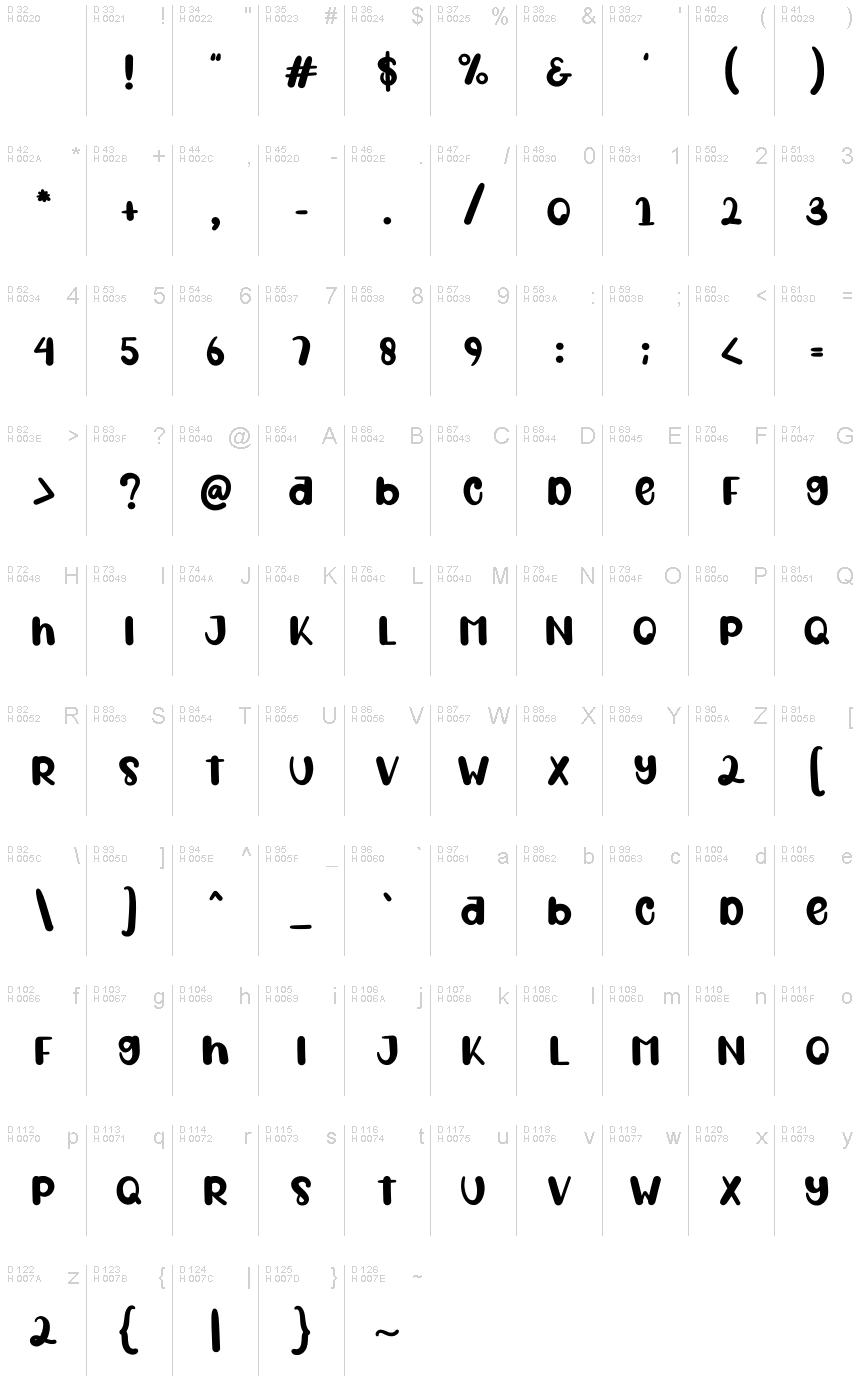
Winter Snowman
Winter Snowman is a delightful, handwritten display font that exudes a sense of whimsy and warmth. Its bold, playful strokes and rounded edges evoke a charming, cartoon-like aesthetic, making it an ideal choice for designs that require a touch of playfulness and friendliness.
This font's sweet, friendly character lends itself beautifully to a variety of applications, from wedding invitations and greeting cards to children's stationery and party decorations. Its expressive, almost calligraphic style adds a personal, handcrafted feel to any design, while the bold weight ensures excellent legibility and impact.
Whether you're crafting a cozy winter-themed project or seeking to inject a touch of lighthearted charm into your designs, Winter Snowman is a captivating font that is sure to capture the attention and delight of your audience.